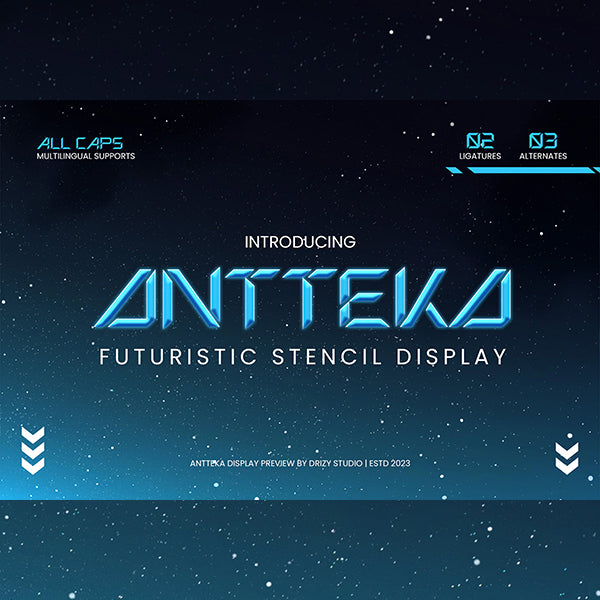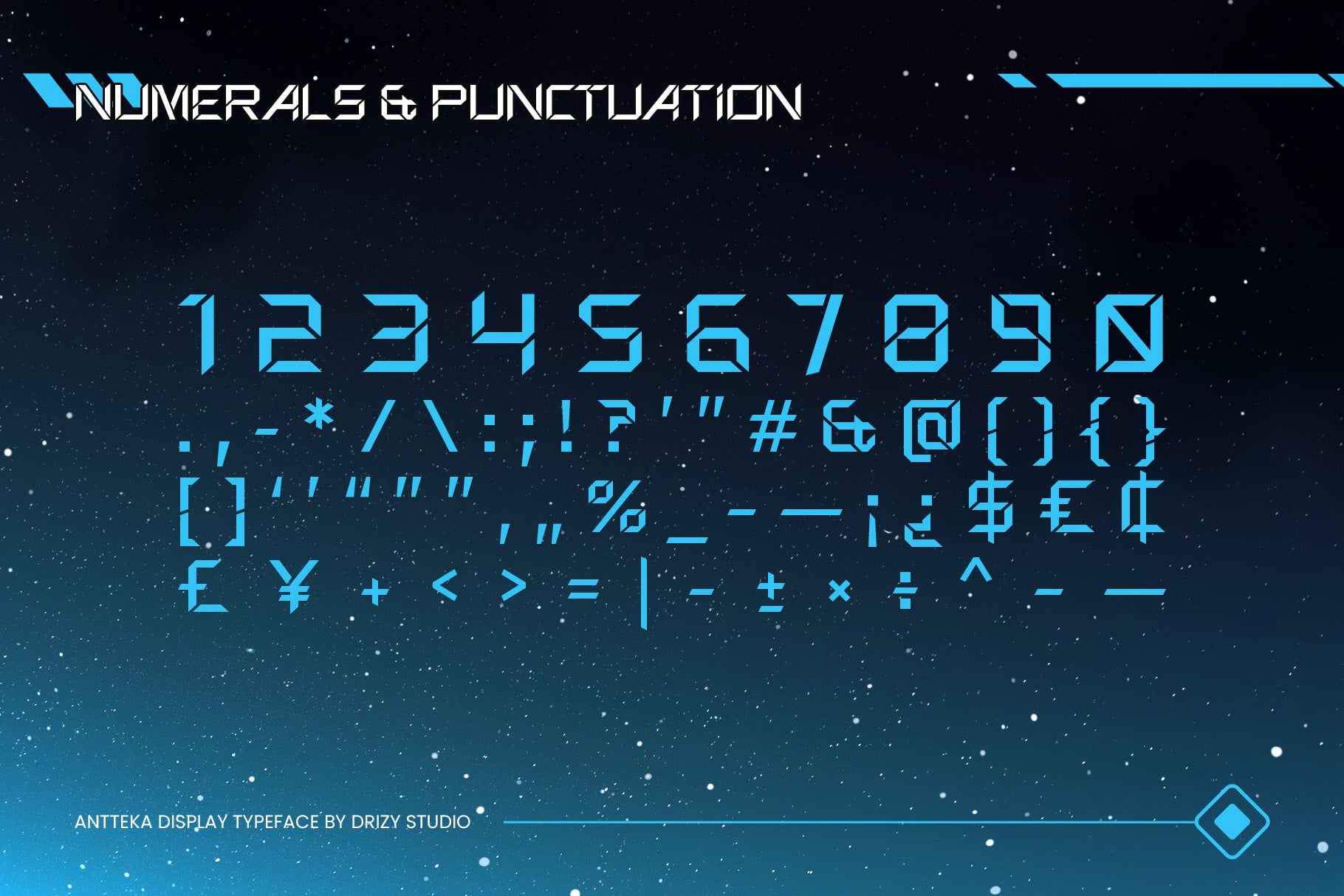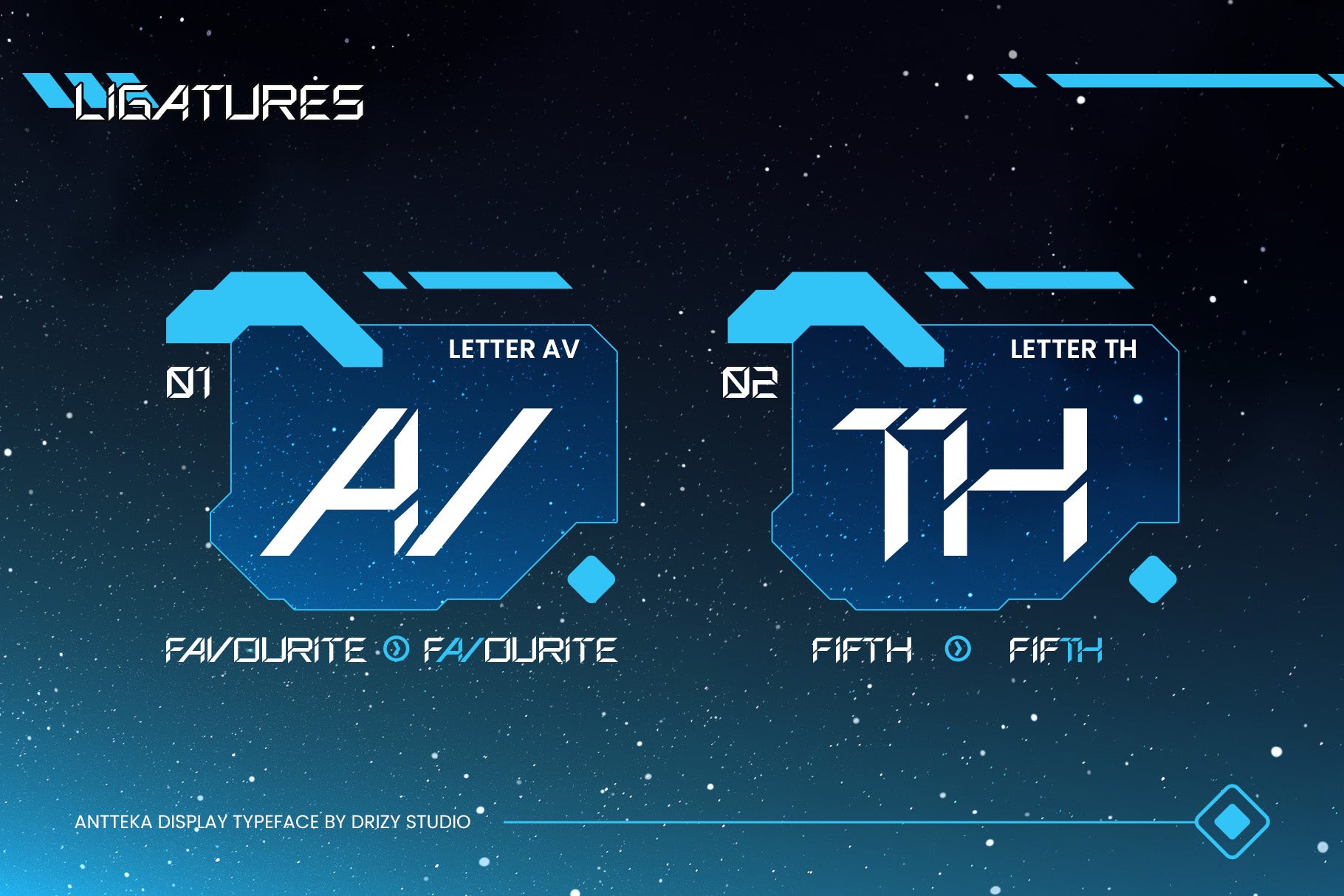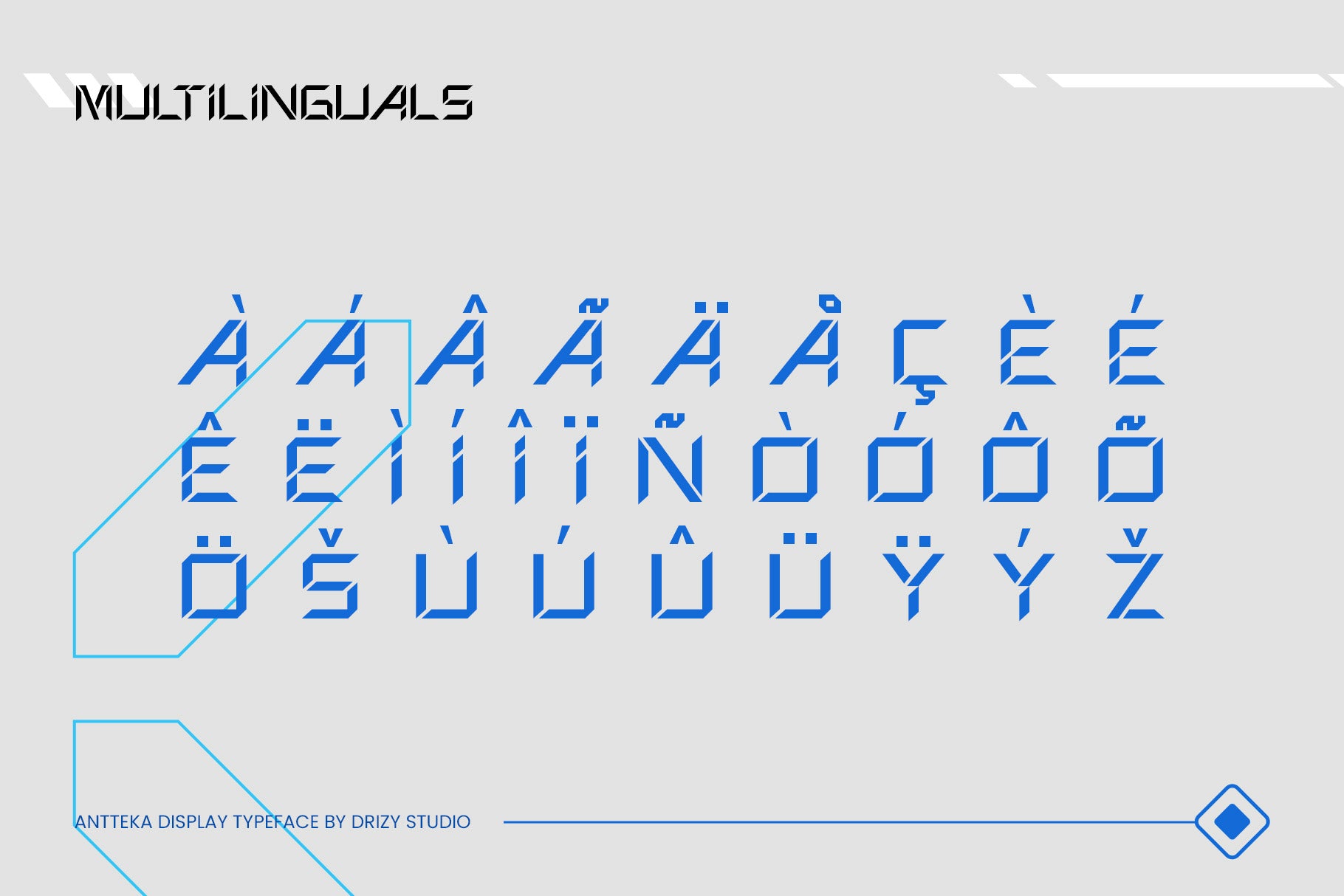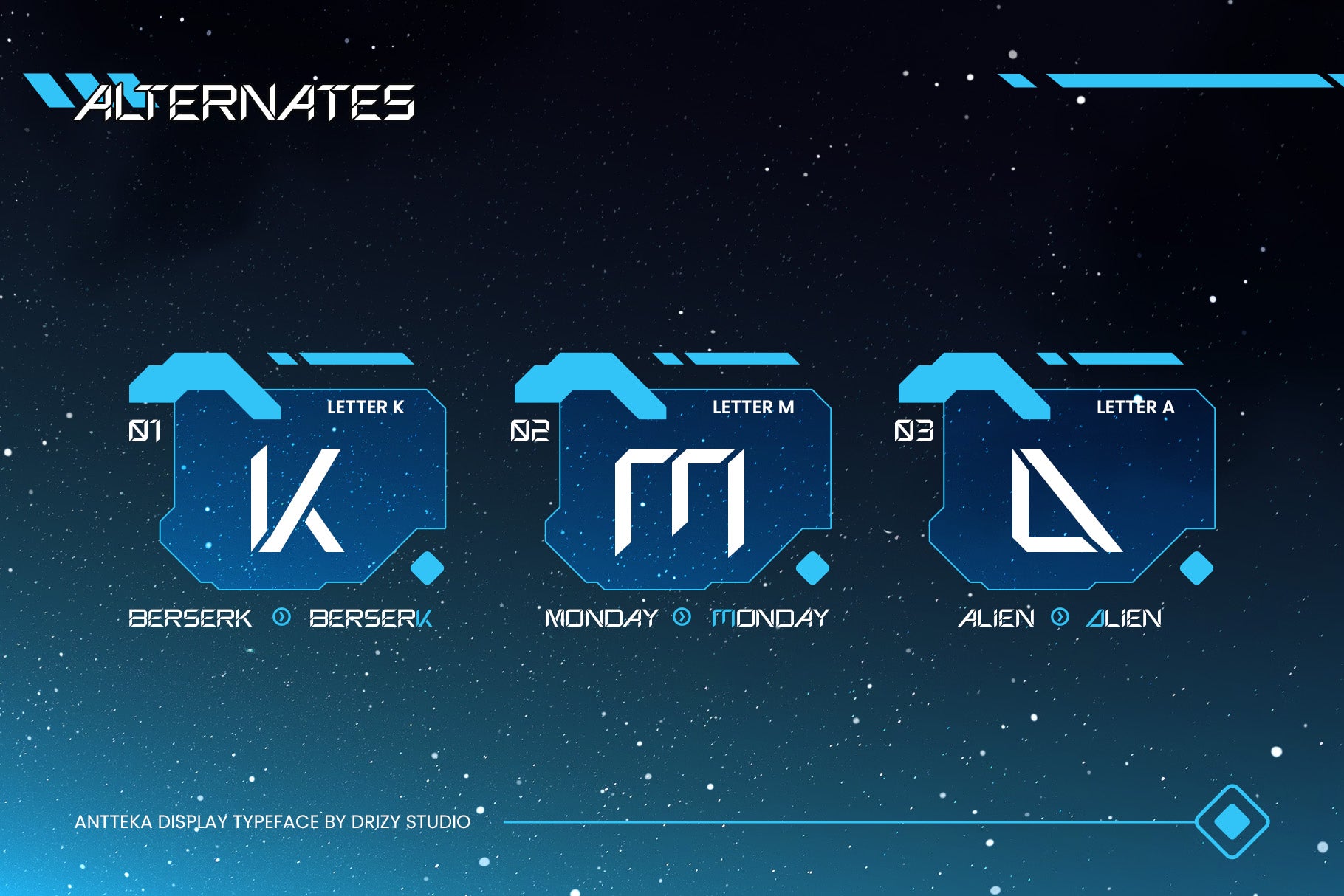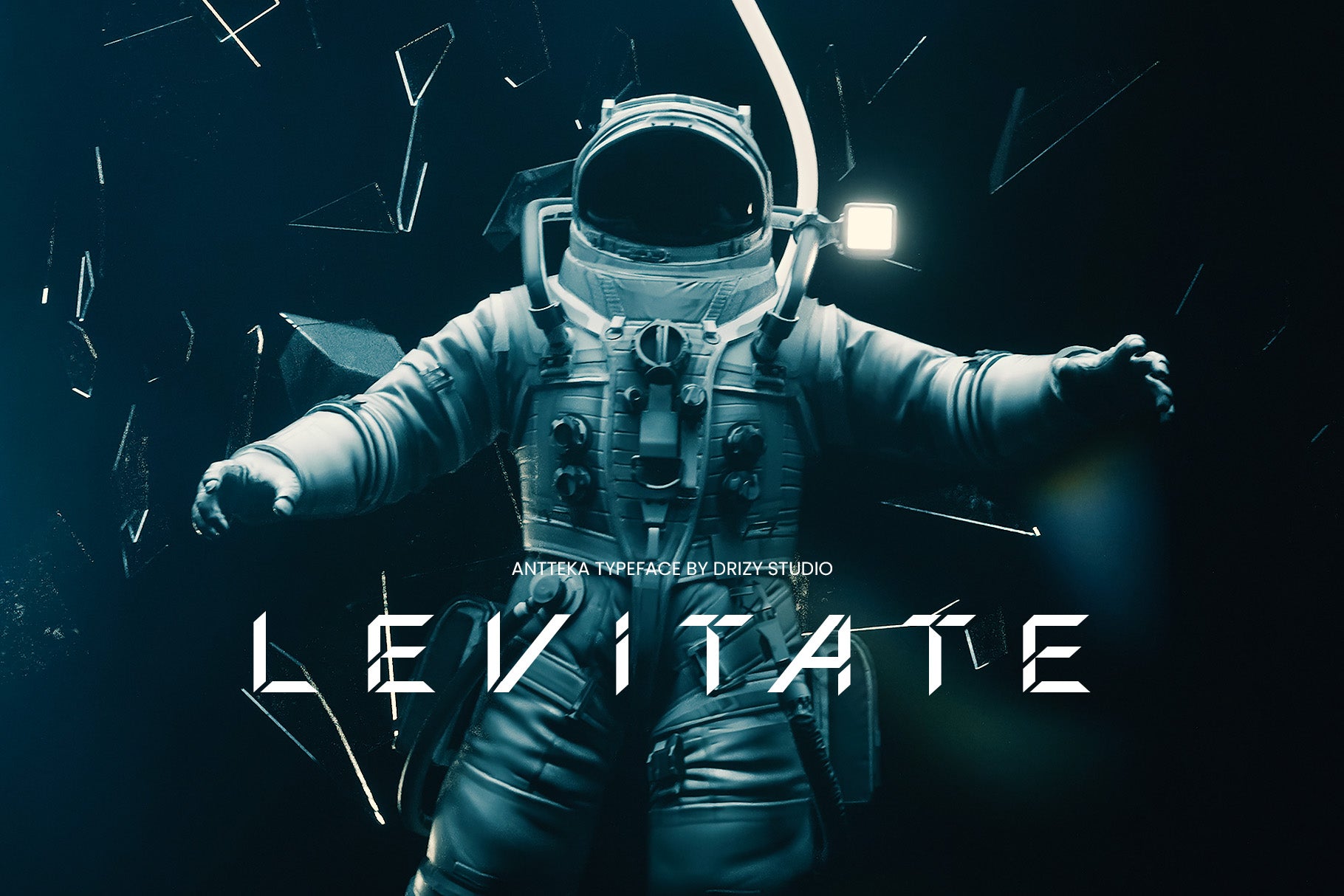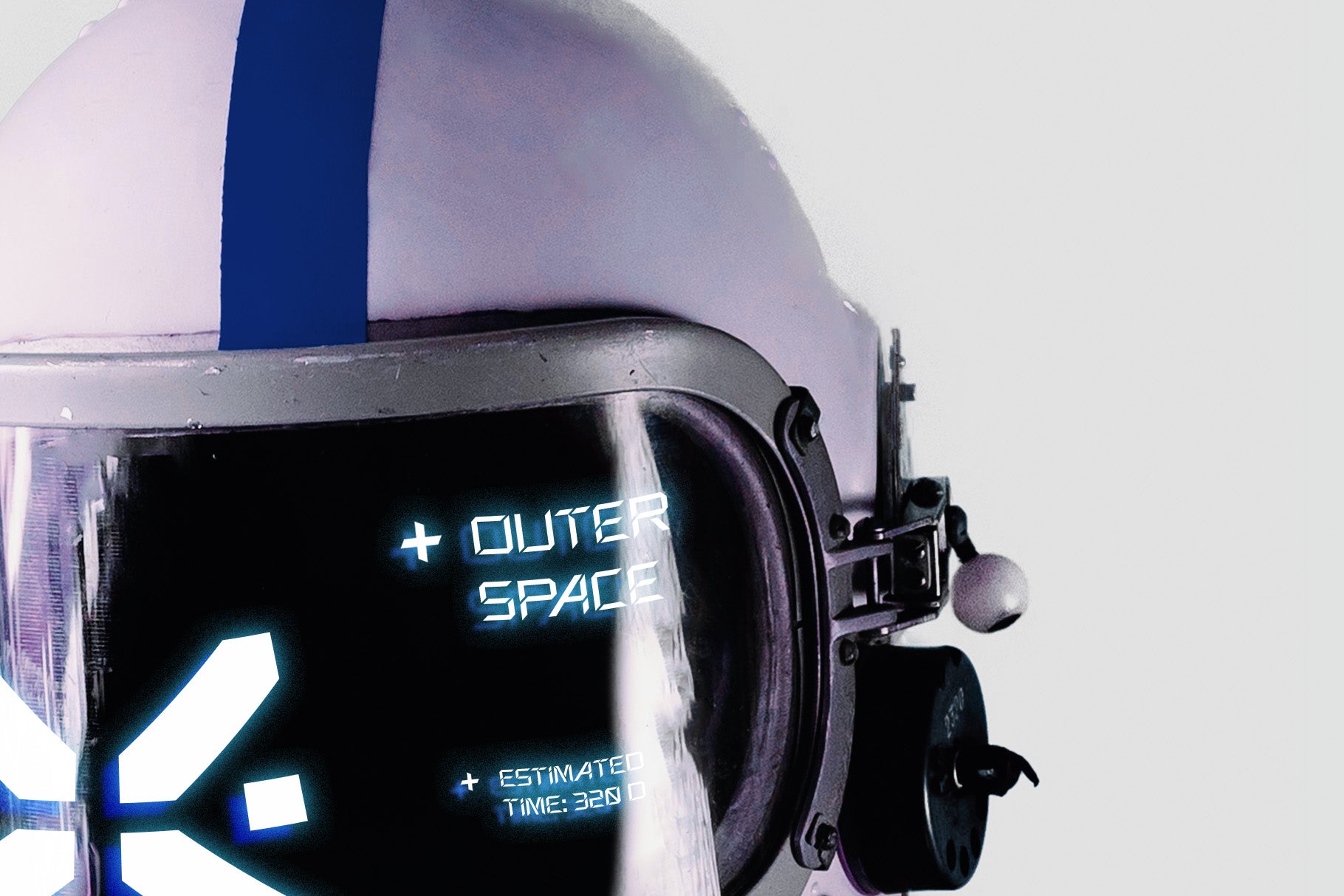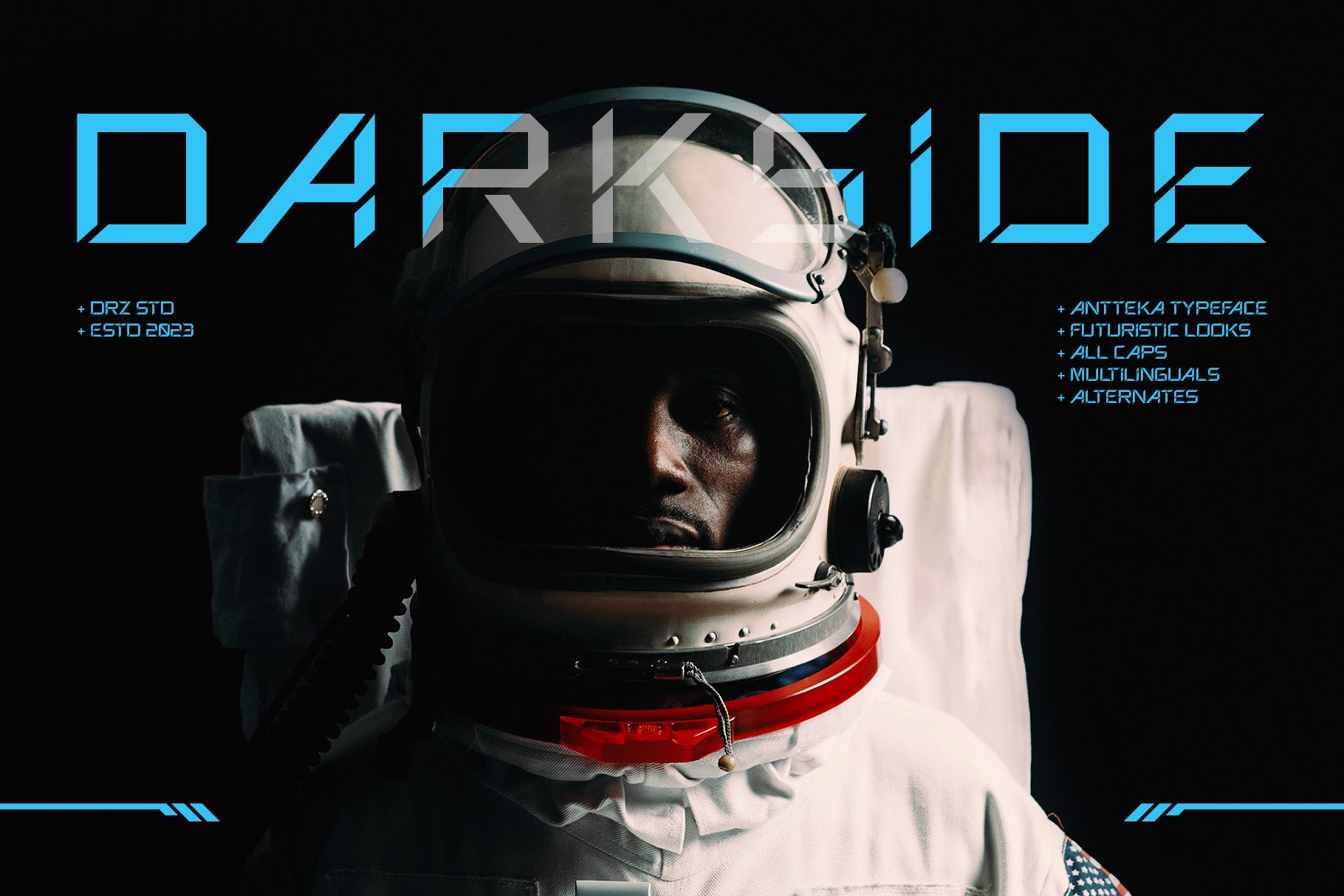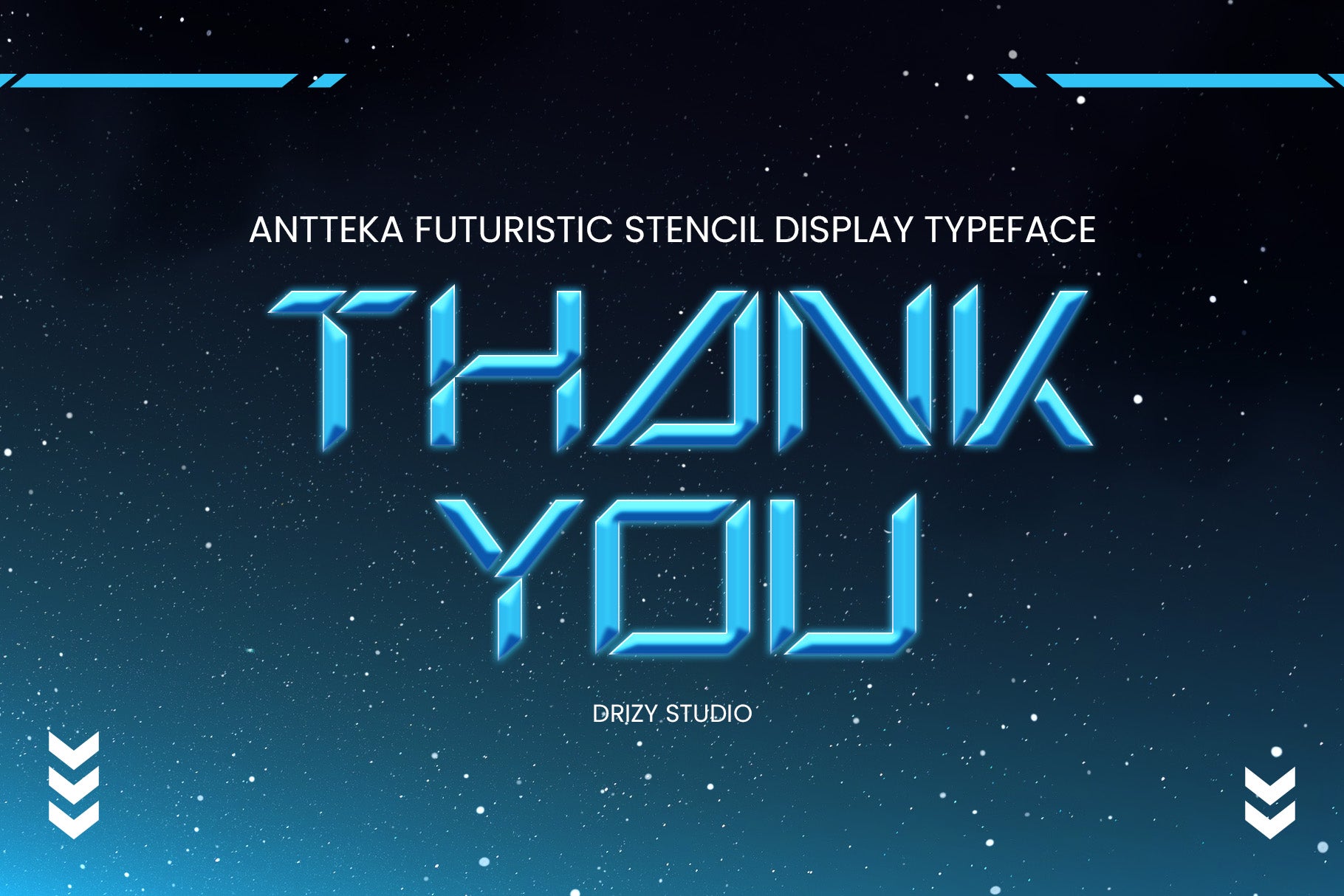
Antteka – Futuristic Stencil Font
Introducing Antteka – Futuristic Stencil Font, a cutting-edge typeface that seamlessly blends futuristic aesthetics with a bold stencil design. This stencil font is a visual representation of modernity and innovation, making it the perfect choice for projects that demand a sleek and contemporary feel.
Antteka – Futuristic Stencil Font features:
• Character Set (All Caps)
• Numbers & Punctuation
• Stylistics Set 01-02
Antteka – Futuristic Stencil Font is a modern typeface featuring an all-caps character set, numbers, punctuation, and multilingual support. It includes two stylistic sets and is available in OTF and TTF file formats.